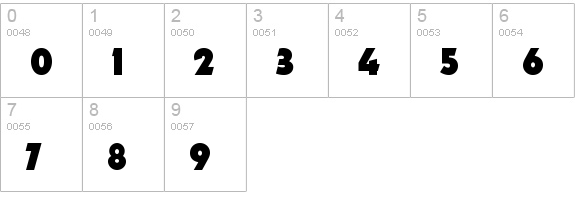
DynamoEF-Bold Font Details
DynamoEF-Bold is a strong, high-contrast variant in the DynamoEF typeface family \xE2\x80\x94 well suited to headlines, attention-grabbing titles, and strong calls-to-action.
DynamoEF-Bold is a striking and modern font that exudes strength and power. With its bold and angular design, this typeface commands attention and makes a bold statement in any project. The thick strokes and sharp edges give DynamoEF-Bold a sense of confidence and authority, making it perfect for headlines, logos, and other prominent design elements. What sets DynamoEF-Bold apart is that it is not only visually impactful, but also completely free to download at FontsMarket.com. This means you can add this impressive font to your collection without any cost, making it a valuable asset for all your design needs. Whether you're working on a professional project or a personal creative endeavor, DynamoEF-Bold is sure to make a bold impression and elevate your design to the next level.